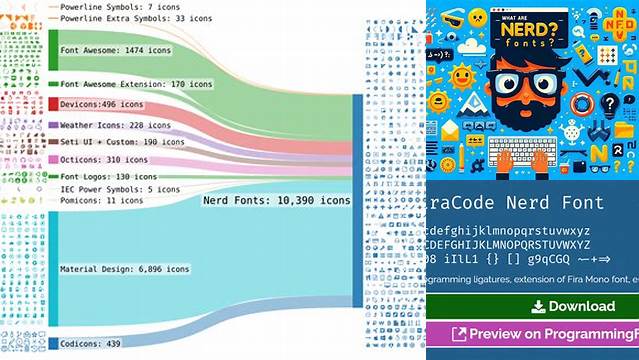
Hey guys! Ever felt your terminal or code editor was missing that oomph? Maybe those cool icons and symbols that make your workflow smoother and your setup look slick? Well, that's where Nerd Fonts come in! And if you're a Windows user, you're in the right place. This guide will walk you through everything you need to know about getting Nerd Fonts up and running on your Windows machine. We're talking step-by-step instructions, troubleshooting tips, and even some cool ideas on how to use them. Let's dive in!
What are Nerd Fonts, Anyway?
Before we jump into the installation, let's quickly cover what Nerd Fonts actually are. Nerd Fonts are essentially fonts that have been patched to include a massive amount of extra glyphs, specifically icons from popular icon sets like Font Awesome, Material Design Icons, and many more. This means you can use these icons directly in your terminal, code editor, or any other application that supports font rendering. Think of it as supercharging your fonts with a whole library of visual goodies. And trust me, once you start using them, you'll wonder how you ever lived without them!
Why Use Nerd Fonts on Windows?
Okay, so why bother with Nerd Fonts on Windows? Here's the deal. They make your command line interface (CLI) and development environment way more informative and visually appealing. Imagine seeing little icons next to your file names in your terminal, instantly recognizing the file type. Or having cool symbols in your Git prompt to show the branch and status of your repository. It's all about improving your workflow and making things more intuitive. Plus, let's be honest, it just looks cool! And who doesn't want a cool-looking setup?
1. Understanding Nerd Font Variations
Nerd Fonts come in various styles and versions, so understanding the options is the first step. You have monospaced and proportional fonts, serif and sans-serif, and different patcher versions. Monospaced fonts, where each character occupies the same horizontal space, are generally preferred for terminal use. Consider your personal preferences and the needs of your applications when choosing a Nerd Font variant. You might want a font that closely resembles your current code editor font for a consistent experience. Think about whether you want a more technical, modern feel or a classic, readable style. Experimenting with different options is key to finding the perfect fit for your setup. Remember, choosing the right font is crucial for both aesthetics and functionality!
"fontFace": "FiraCode Nerd Font",
Save the file, and your terminal should now be using the Nerd Font. You might need to restart your terminal for the changes to take effect. Remember, configuration is crucial for seeing those cool icons!
5. Setting Up Nerd Fonts in Your Code Editor
Your terminal isn't the only place you can use Nerd Fonts! Many code editors, like VS Code, Sublime Text, and Atom, also support custom fonts. The process is similar to configuring your terminal. In VS Code, for example, you'll need to open the settings (File > Preferences > Settings) and search for “font family.” Add the name of your Nerd Font to the editor.fontFamily setting. For example:
"editor.fontFamily": "FiraCode Nerd Font, Consolas, 'Courier New', monospace",
Make sure to include fallback fonts in case the Nerd Font isn't available. Save the settings, and your code editor should now be rocking your new font. This will make your code look much cleaner and more readable, especially if you're using extensions that support icon themes. Don't forget, your code editor deserves some Nerd Font love too!